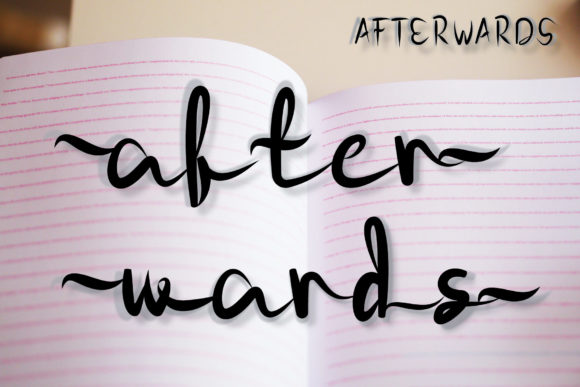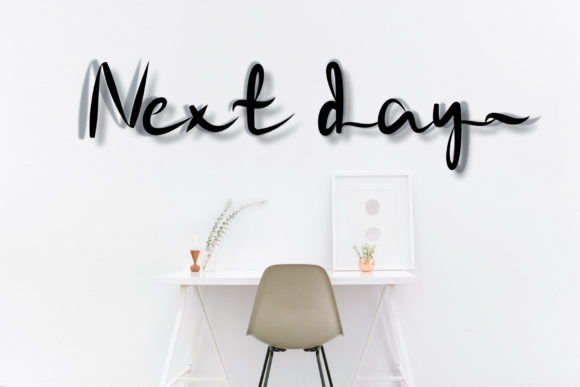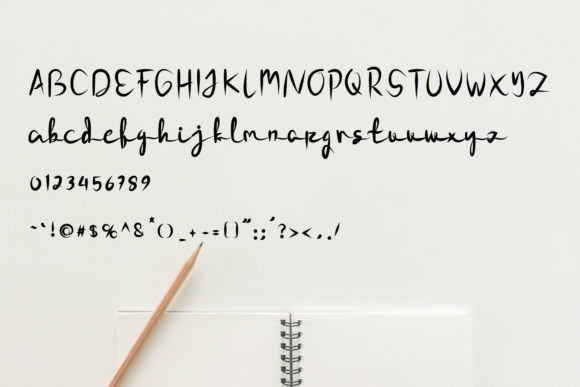
About For a While Font
For a While is a beautiful and versatile script font that adds a touch of simplicity and neatness to your designs. With its clean letterforms and subtle quirkiness, this font is perfect for a wide range of projects, including logos, branding, social media graphics, and crafty DIY projects.
The simplicity of For a While gives it a modern and contemporary feel. Its clean lines and balanced letterforms make it easy to read and versatile for various design applications. Whether you’re designing a logo for a minimalist brand or creating social media posts with a clean aesthetic, this font will help you achieve a polished and professional look.
While For a While is simple, it also carries a subtle touch of quirkiness, adding a unique personality to your designs. The slight variations in letter shapes and strokes give the font a playful and friendly vibe, making it approachable and engaging to the viewer.
Whether you’re designing a logo, creating branding materials, crafting social media graphics, or engaging in DIY projects, For a While is a versatile font that will complement your creative endeavors. Its simplicity and neatness make it easy to pair with other fonts or use as a standalone typeface, depending on the desired look and feel.
In summary, For a While is a simple and neat-lettered script font that brings a touch of simplicity and quirkiness to your designs. Its clean lines, balanced letterforms, and PUA encoding make it a versatile choice for logos, branding, social media graphics, and crafty DIY projects. With For a While, you can achieve a polished and professional look while adding a unique and personalized touch to your designs.